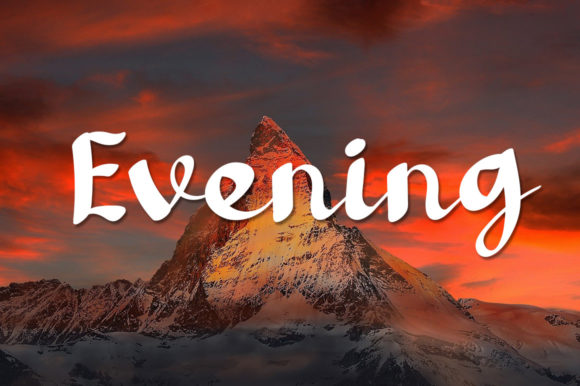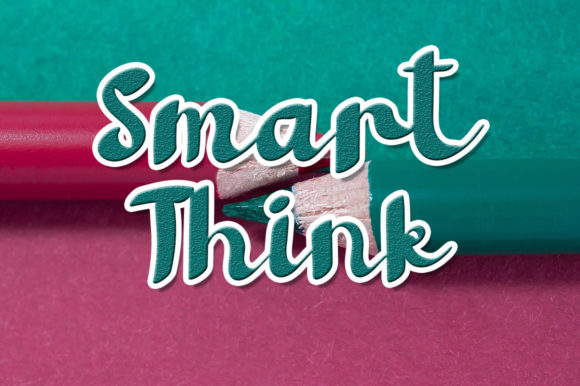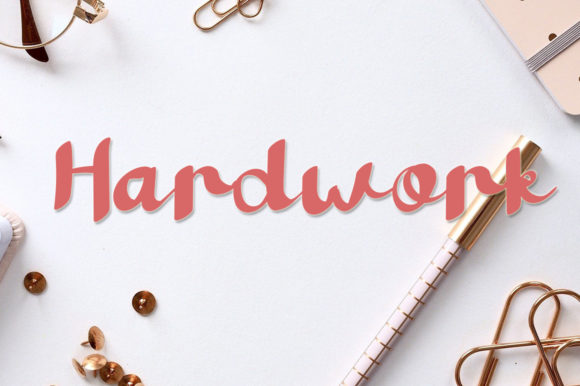
Honey Baby Font
About Honey Baby Font
Honey Baby is a superb handwritten front that beautifully combines a cursive style with an extremely modern and sophisticated look. Fall in love with its incredible style, and use it for your creative projects!